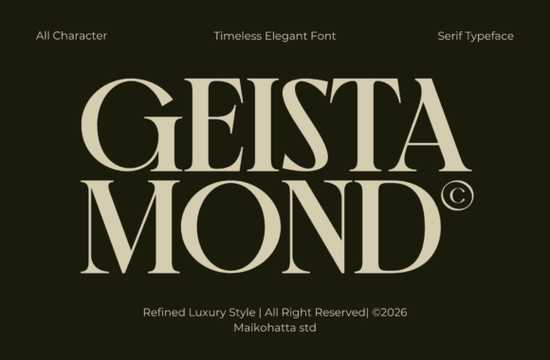
If you're looking for a serif font that feels both timeless and quietly confident something that works just as well on a wedding invitation as it does on a luxury skincare label you’ll likely find Geista Mond Font fits naturally into your workflow. It’s not flashy or overly ornate, but it carries weight: elegant curves, balanced contrast between thick and thin strokes, and letterforms shaped with care. Think of it as the kind of typeface you’d see in a quiet boutique’s logo or a well-designed editorial spread not shouting, but holding space with intention.
When does Geista Mond work best?
This font shines where clarity meets refinement. If you’re designing for clients in beauty, fashion, or fine stationery or if you run a small print-on-demand shop focused on premium home goods or bridal accessories it adds instant polish without feeling dated. Its generous x-height and open counters keep readability high, even at smaller sizes so it holds up well on product tags, social media banners, or minimalist packaging.
It’s especially strong for projects where tone matters as much as legibility: a jewelry brand launching a new collection, a local florist creating seasonal greeting cards, or a wedding planner updating their client proposal templates. Because it avoids extreme contrast or exaggerated serifs, it pairs easily with clean sans-serifs (like Inter or Montserrat) or even subtle script accents no overthinking required.
How does it compare to other elegant serif fonts?
Unlike some high-contrast Didones that demand attention, Geista Mond leans into restrained sophistication. It’s more approachable than fonts like Bodoni or Didot, but still carries enough character to stand apart from neutral workhorses like Georgia or Merriweather. You’ll notice thoughtful details like the gently flared terminals on lowercase a and r, or the graceful curve of the uppercase G that give it personality without sacrificing versatility.
For designers who already use serif fonts regularly, it slots neatly alongside options like Elora Maison Font or Solguse Font, each bringing its own flavor of elegance. If you’ve used wedding collection serif fonts before, you’ll recognize the same attention to spacing and rhythm but Geista Mond feels less “themed” and more broadly applicable across industries.
Where else might you use it?
Small business owners often overlook how much tone is set by typography alone. A café rebranding its menu board, a ceramicist labeling handmade mugs, or a wellness coach designing a printable habit tracker all benefit from a font that looks intentional but never stiff. Geista Mond also works well in digital spaces: try it for Instagram story templates, Canva presentations, or email headers where you want warmth without informality.
If you’ve explored fonts like Bring Vacation Font, you’ll appreciate how Geista Mond trades playful energy for grounded elegance. And while Geista Mond Font is designed to feel luxurious, it doesn’t require luxury budgets making it practical for hobbyists and side-hustlers alike.
Try pairing it with soft neutral colors (ivory, charcoal, warm taupe) and plenty of white space. If you’re testing it for the first time, start with a simple one-page layout like a mock-up of a cosmetic product tag or a digital quote graphic and see how the rhythm of the letters feels in context. That’s often the best way to know whether a font truly fits.